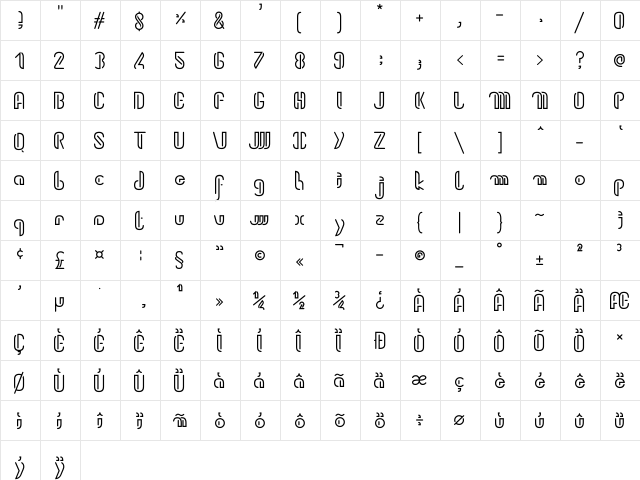
Kiwilite Regular
Design Context for Kiwilite Typeface
Kiwilite is a composed and adaptable typeface that performs quietly and consistently across a wide range of design contexts.